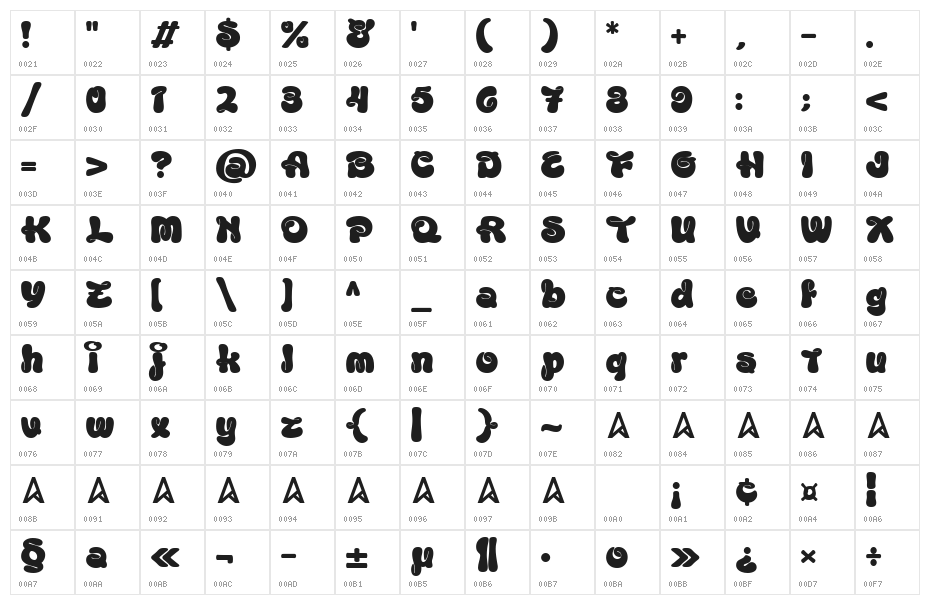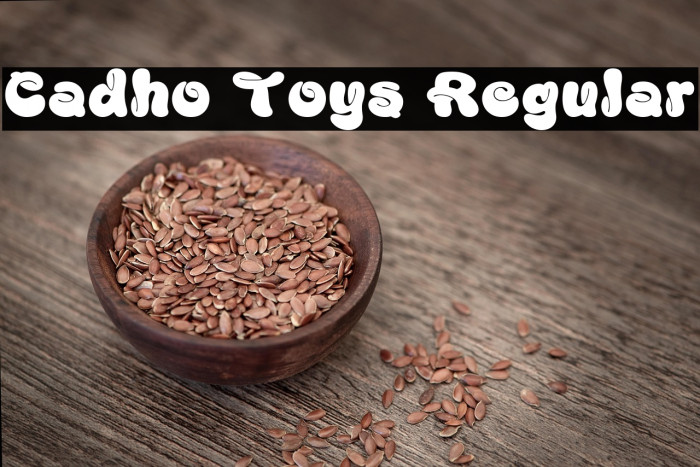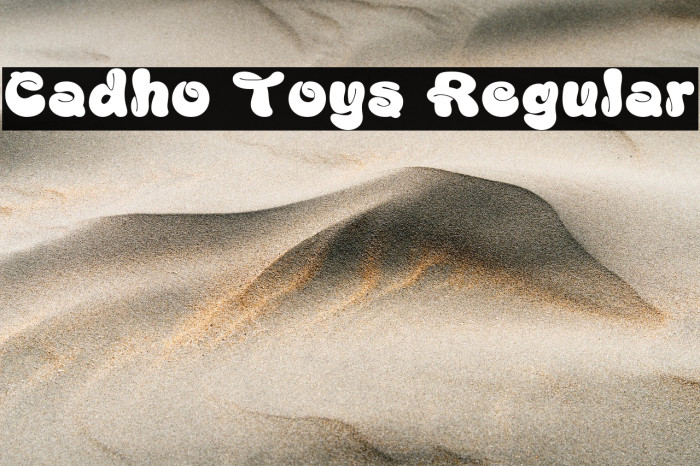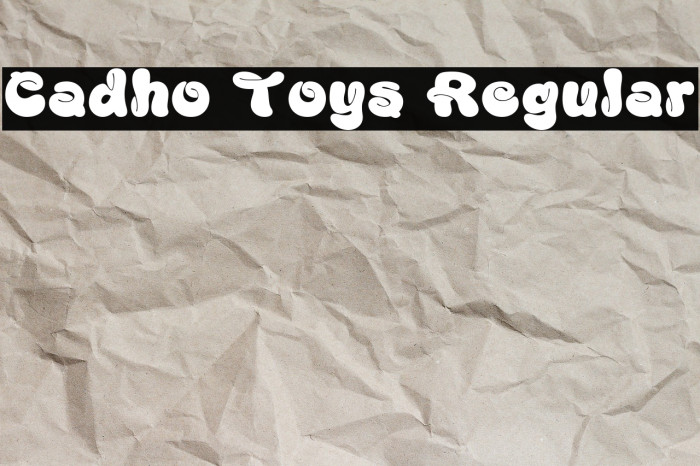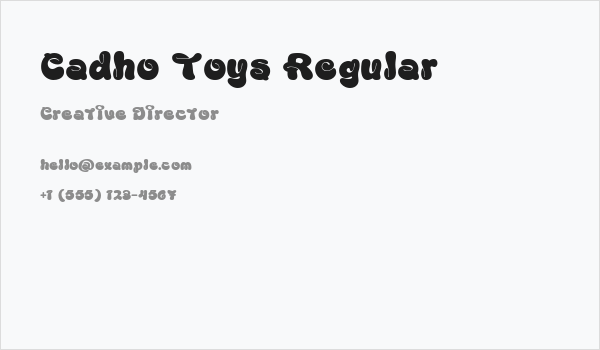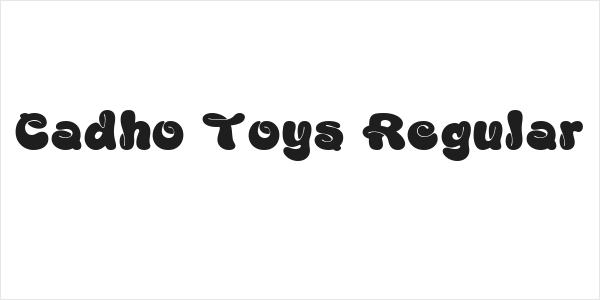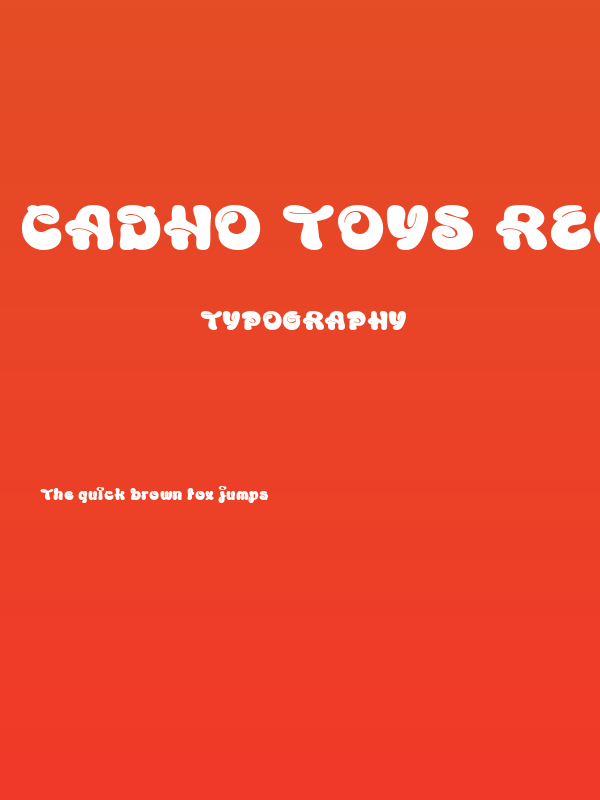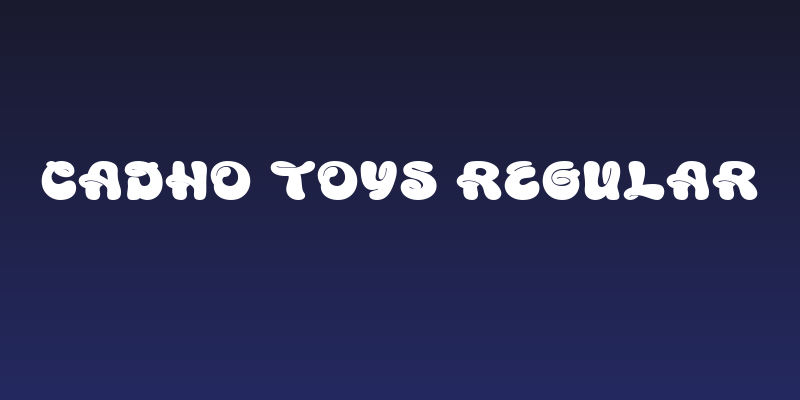
Cadho Toys Regular Font
Cadho Toys Regular Description
This playful and bold font features rounded, bubble-like characters that convey a sense of fun and whimsy. The letters are thick and have a soft, inflated appearance, making them stand out with a strong visual presence. The font maintains consistent thickness throughout, with smooth curves and rounded edges that enhance its friendly and approachable style. It is particularly suitable for designs that aim to capture attention and convey a lighthearted or youthful tone.
| Proposed Projects | Ideal for children's books, toy packaging, playful branding, and party invitations. |